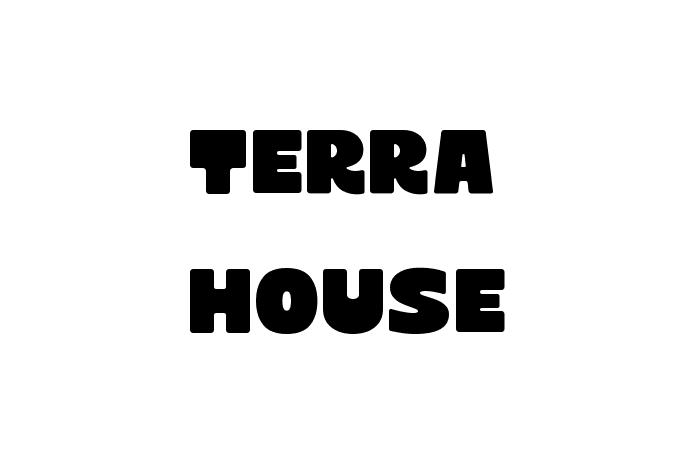
Jelly Choco Font
Jelly Choco is a modern Bubble typeface which belongs to the Fancy font family. yogaletter is the designer of this typeface. Jelly Choco font are an excellent choice when you’re looking for a fun, playful font that makes a bold statement. Its Bubble glyphs make it more beautiful for designers. It is good for use in branding different projects.
Font designer Yoga Letter 2023 (Isroni Yoga Prasetya)
Font Family Jelly Choco
Typeface classification Fancy,Groovy